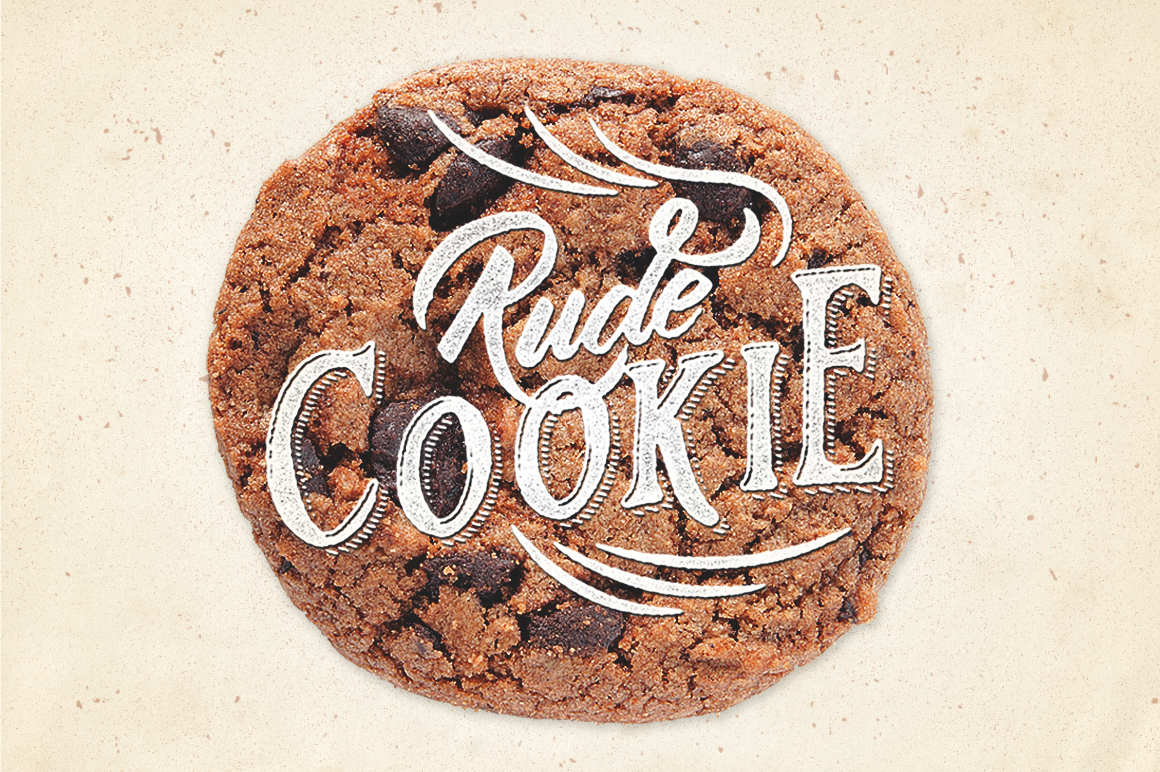
Rude Cookie Font Layer
rude cooke is handrawn font with unique character and have a lot of beautiful alternative character, in this pack is serif fonts and scripts font. This couple fonts designed to be works together so it can make your projects more easily